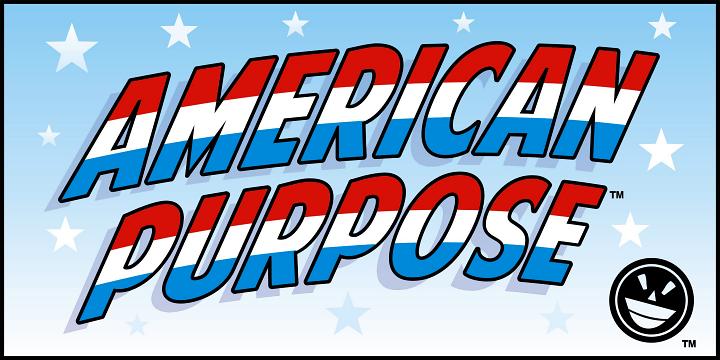
American Purpose by Michael G. Adkins The captain America knows and loves best is back. This time his colors are shining brightly through in a brand new font that is uniquely designed to handle the overarching effects of that which you see in your mind and all that will be seen by those perusing your handiwork. What does that mean? It means this font was crafted to be arced, enveloped -- fit to the master path-round, if you will. But I must warn you ... the master's pride is quite large. Failure to comprehend the proper methods for enveloping otherwise stable vectors may lead to unpredictable and grossly unacceptable results. For commercial use please feel free to contact us for price, links and details at: the_fontry@yahoo.com or visit the Fontry website http://www.thefontry.com/ |